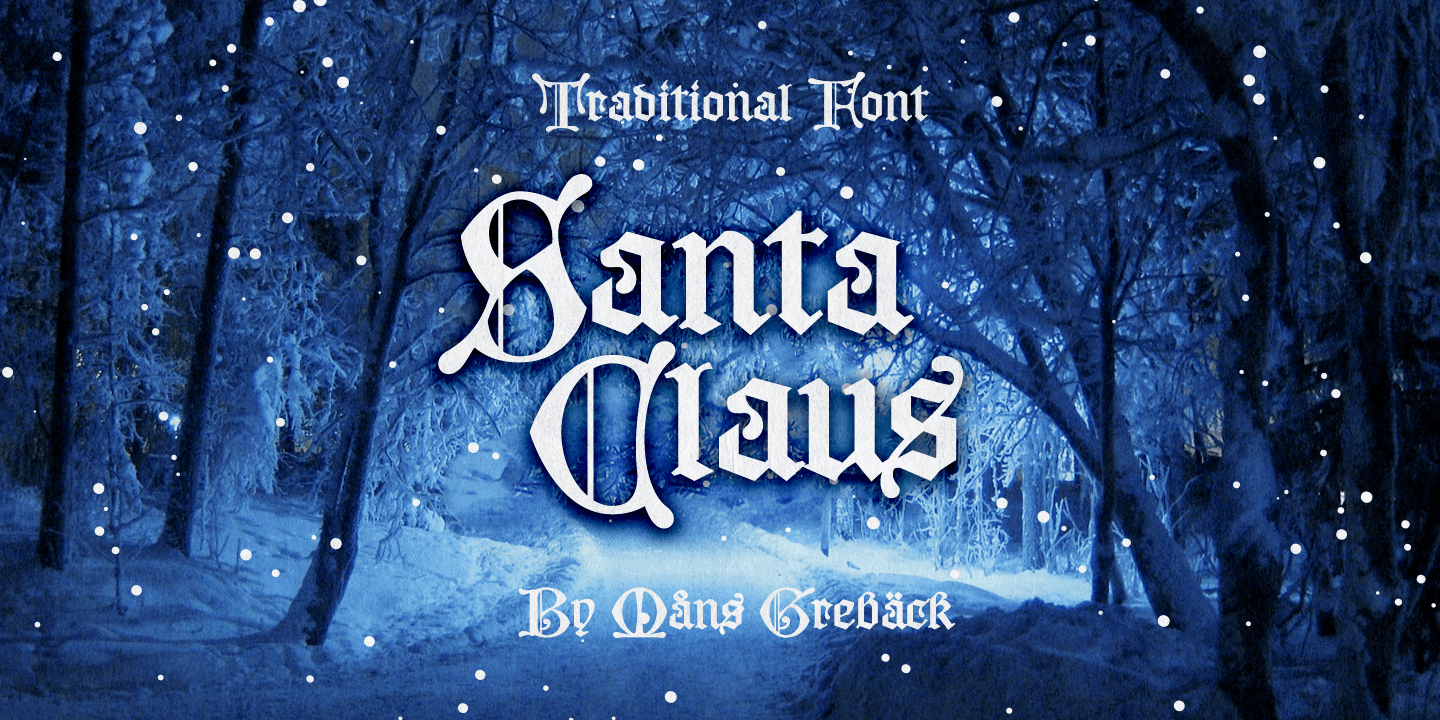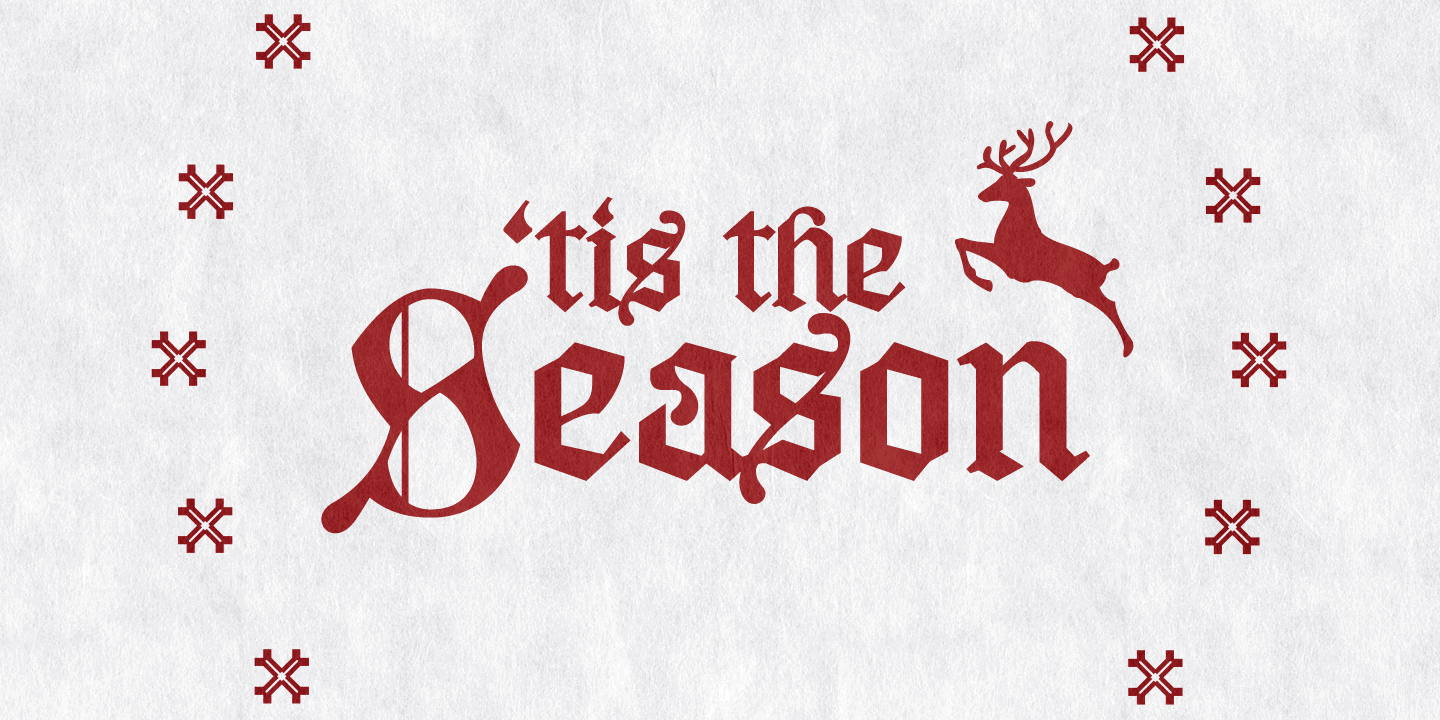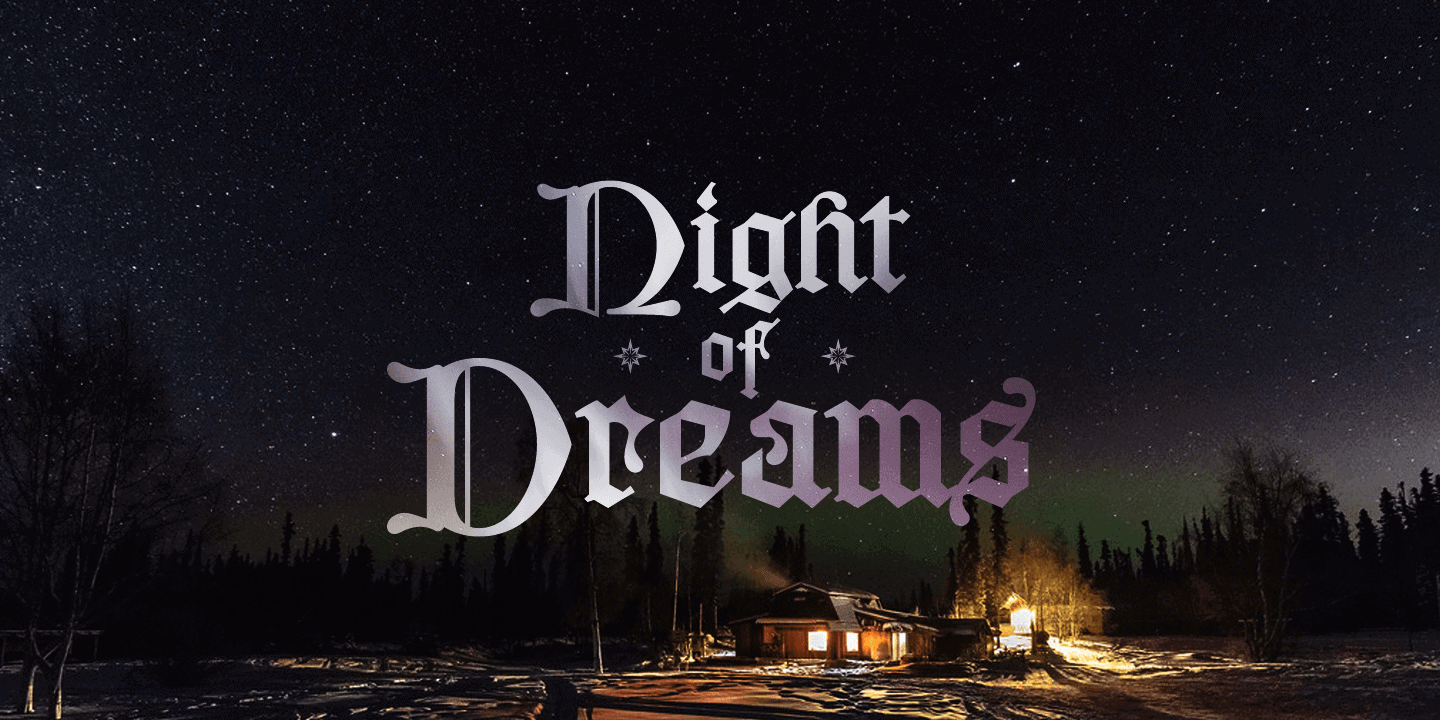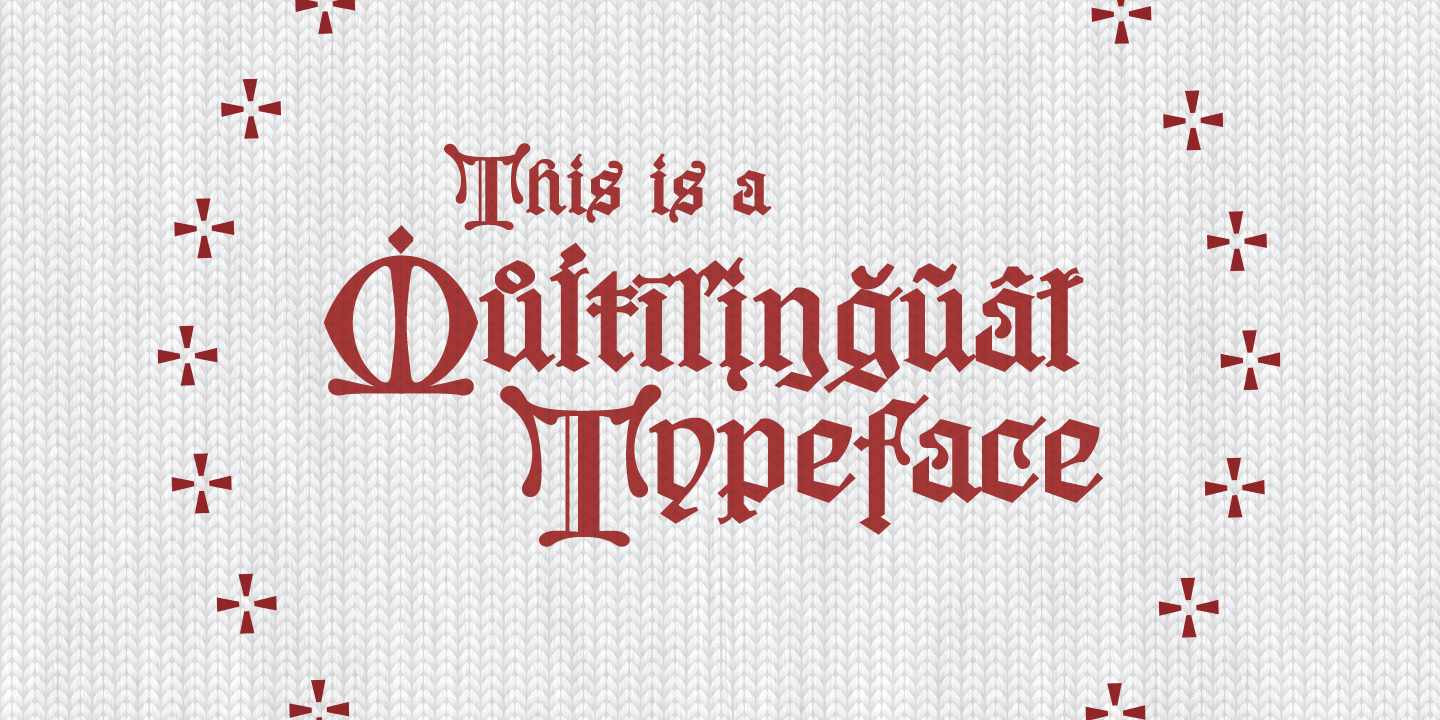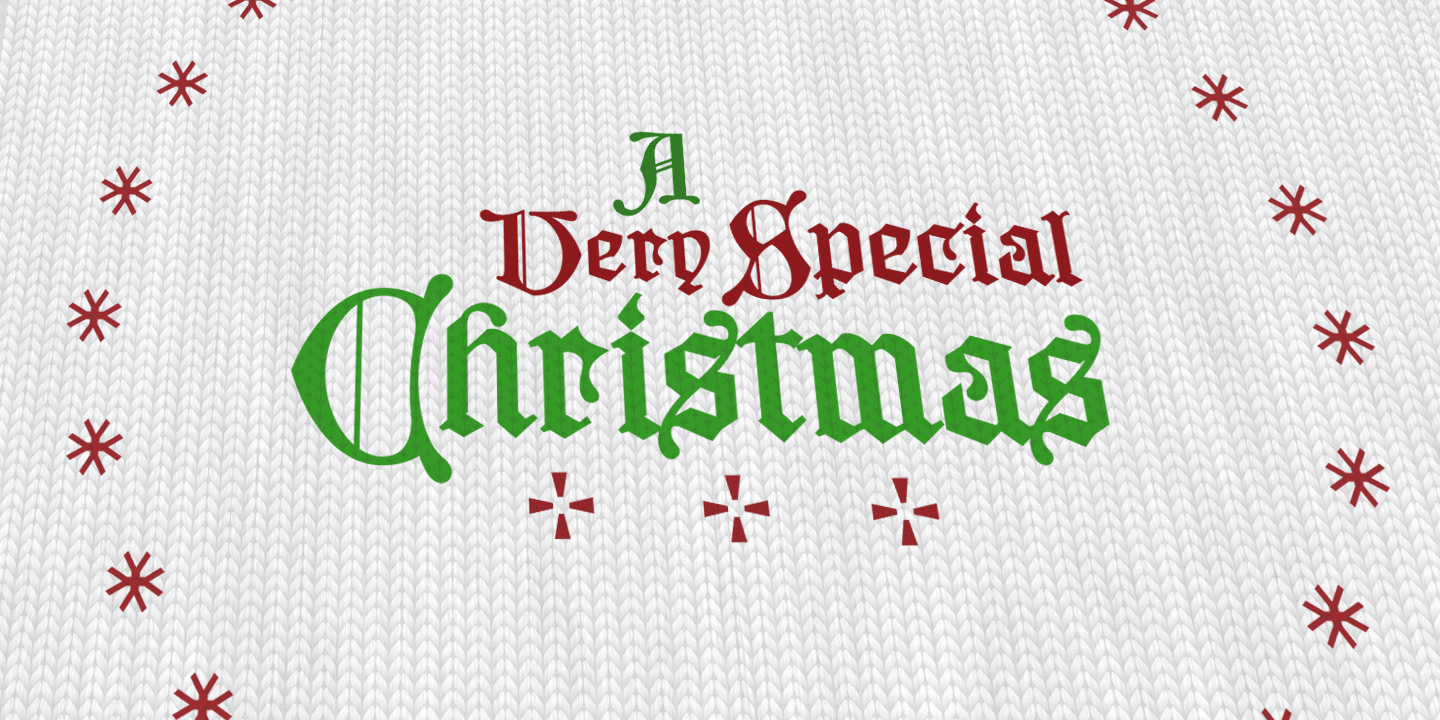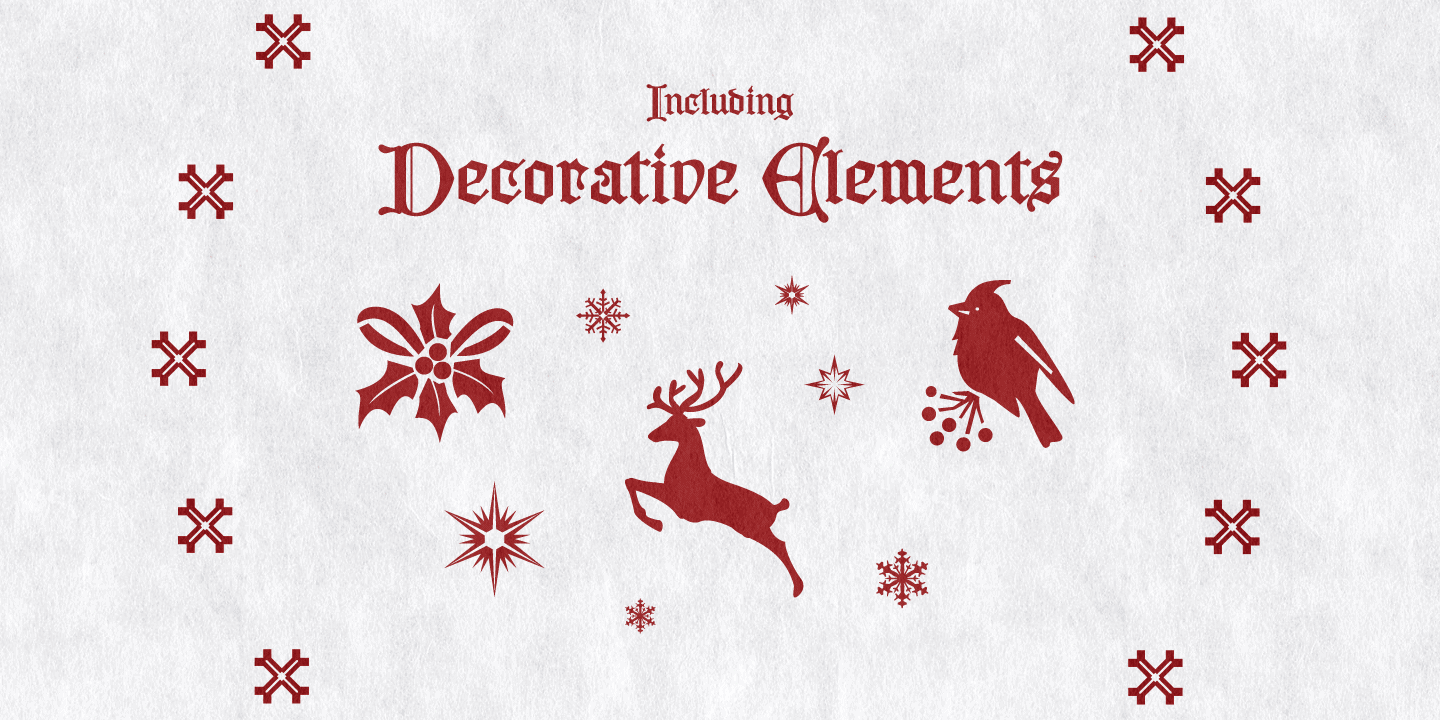
Santa Claus
Santa Claus is a traditional Christmas typeface.
Being decorative and based on antique, Middle Ages letter forms, it aims to be a traditional type for Holiday contexts.
The lettering was drawn by Måns Grebäck and put together into a font during 2019.
The font is of high quality, and comes with an additional Christmas symbol typeface.
You can also use the numbers to access symbols. Example: Santa6Claus
It contains all necessary characters and supports a very wide range of international languages.